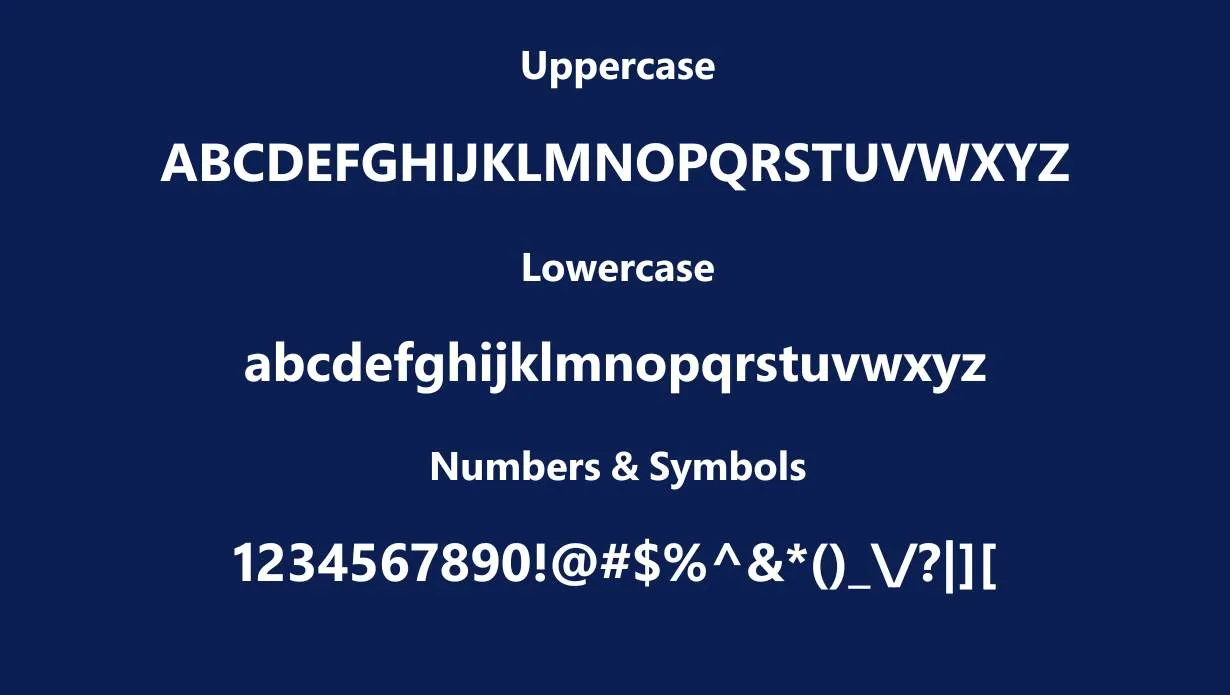
Segoe Pro Font is like a reliable companion for your words. Each letter appears neat as if they decided to wear a crisp suit. When you use Segoe Pro Font, your writing becomes like a clear message, making everything easy to read.
It’s like the simplicity of an organized desk, giving your words a professional and straightforward look. Pick Segoe Pro Font when you want your writing to have the dependable style of a trustworthy friend.
| Name | Segoe Pro Font |
| Designer | Steve Matteson |